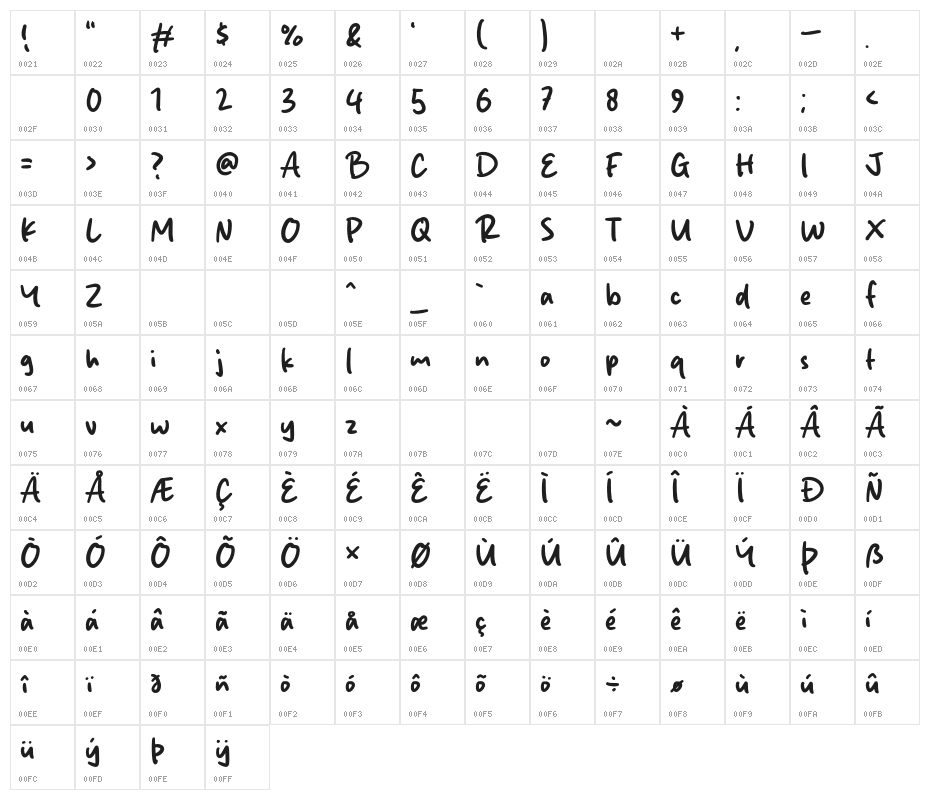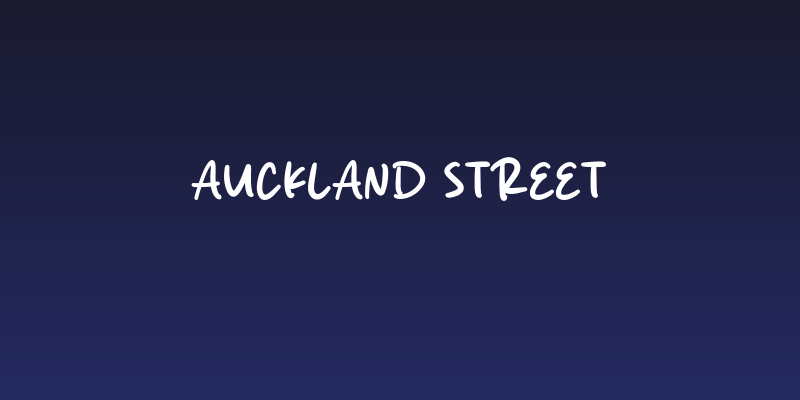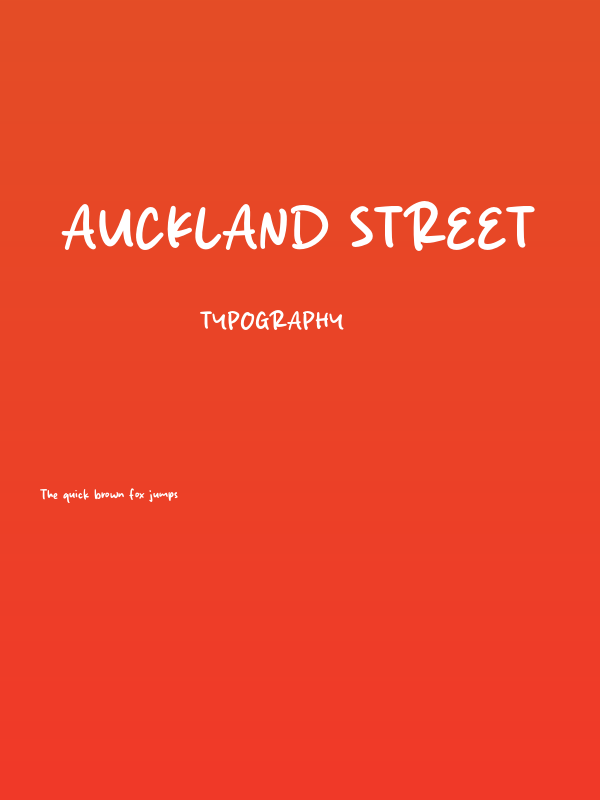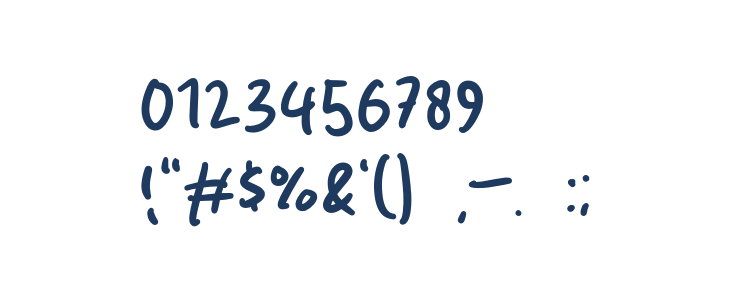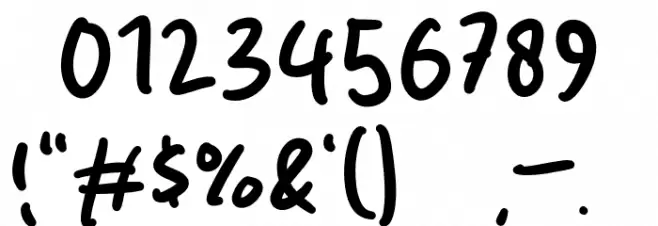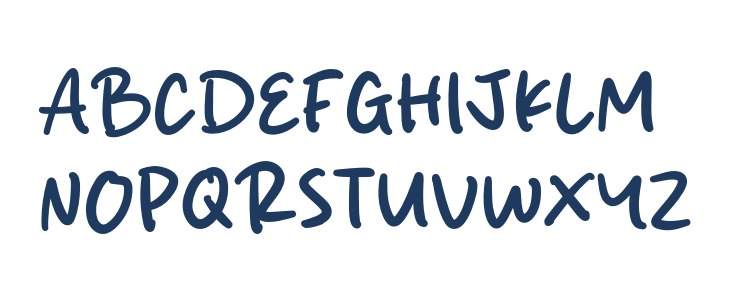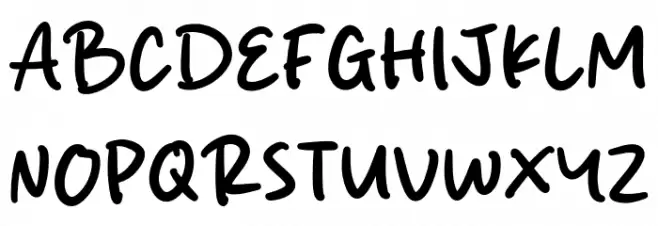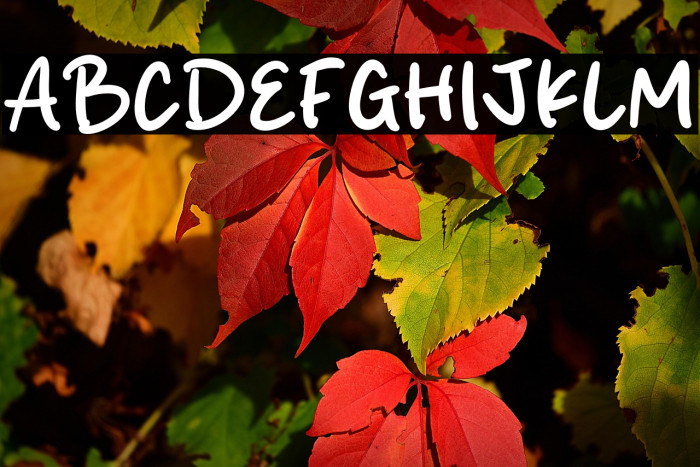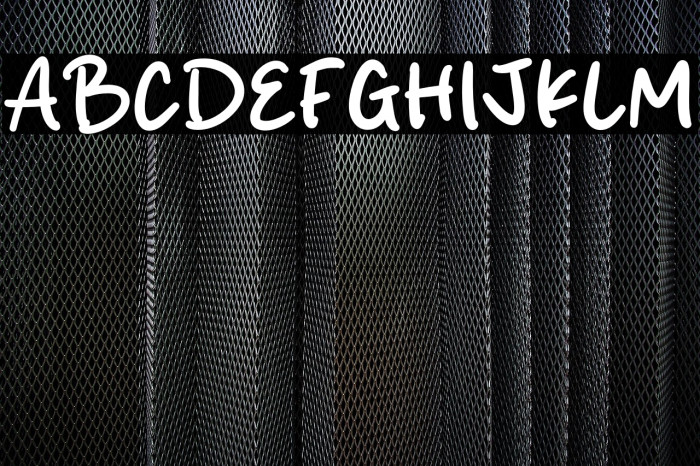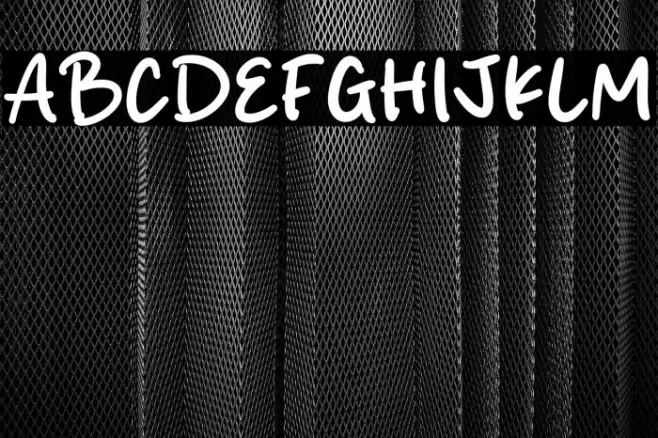
Auckland Street Font
Auckland Street Description
A casual, handwritten script font with a playful and friendly appearance, featuring rounded edges and a slightly irregular stroke width.
| Overall Style | Casual, Friendly, Playful |
| Use Case | Headlines, Body text, Logos, Invitations |